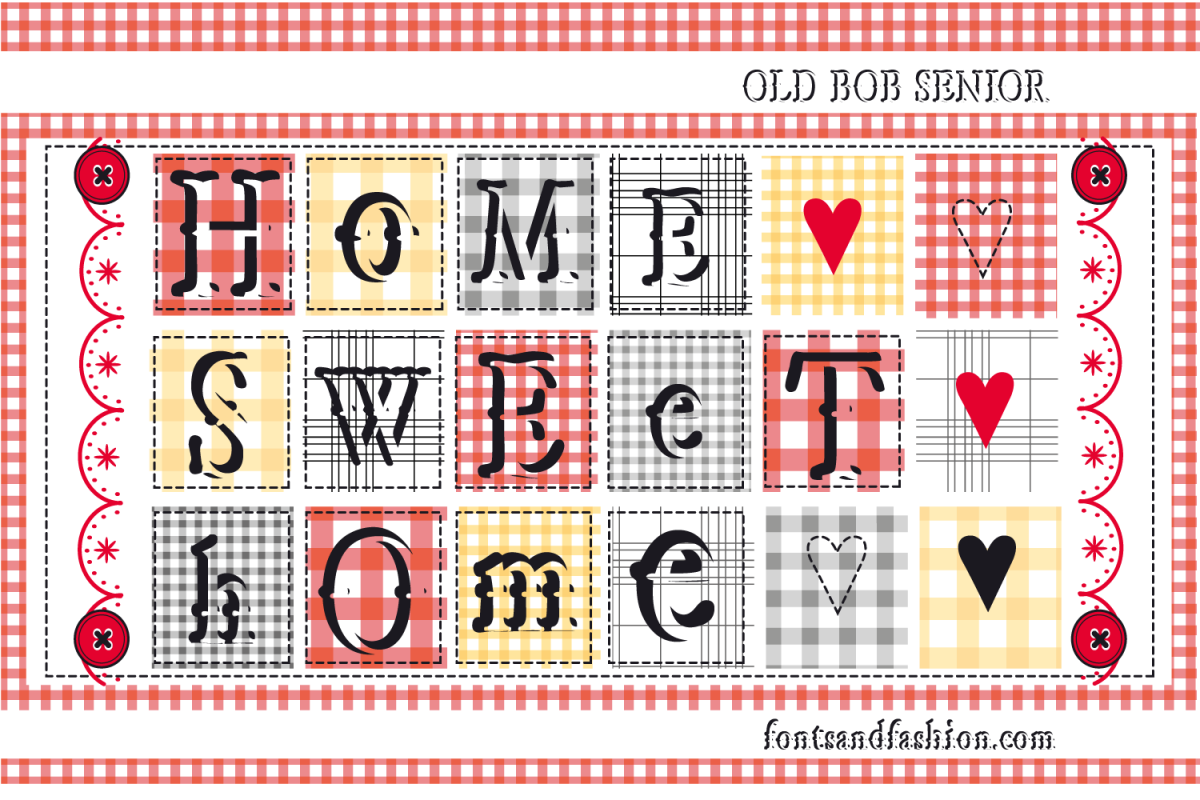
OLB BOB SENIOR
OLD BOB senior
This version is derived from Old Bob basic and it creates a more unusual effect...
This version also takes advantage of the background transparency, the letters are very easy to read,
but it will also let the colours of the background stand out, whether drawn or decorated with
patterns, they will allow you an infinite range of possibilities for your creations... It can be used
alone or together with the other fonts of the same family, allowing you to create a huge variety of
innovative and unusual works!!!